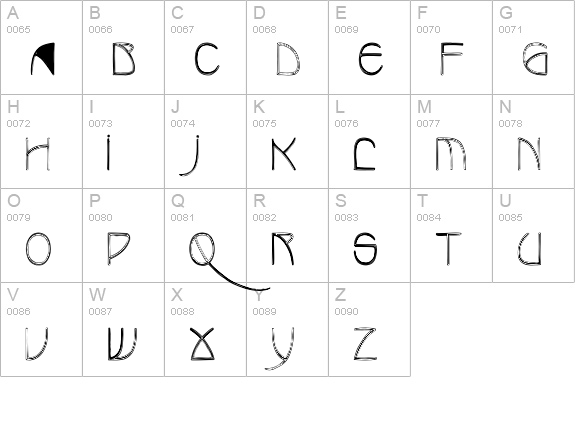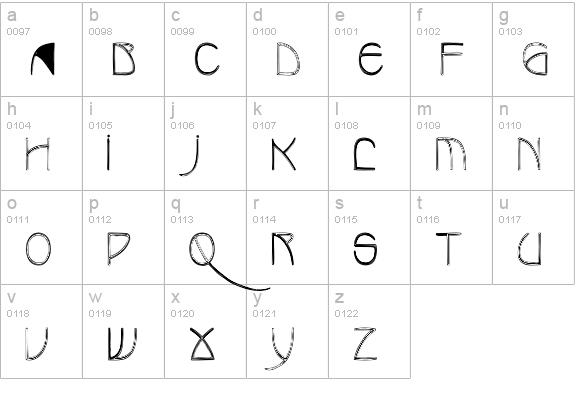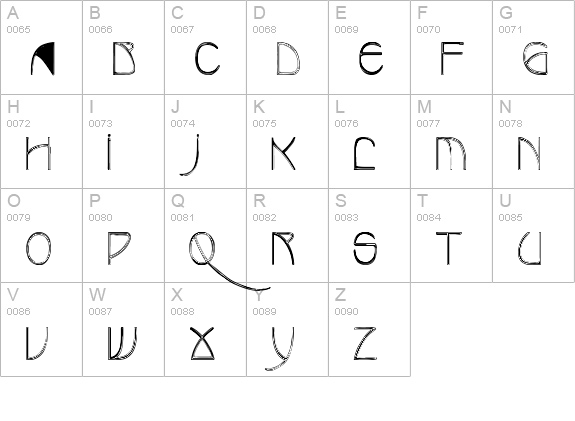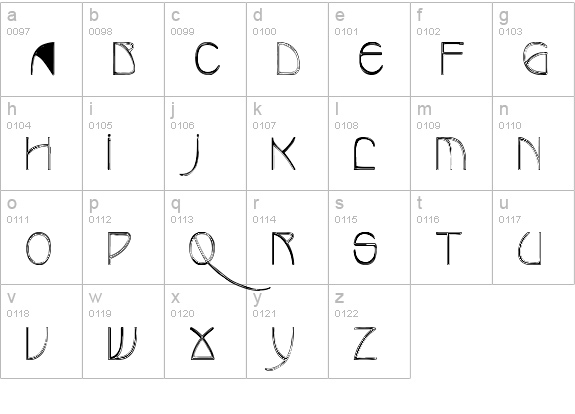
BenjaminCapsHC Font Details
BenjaminCapsHC font is a stylish and elegant typeface that exudes sophistication and class. Its uppercase characters are beautifully designed with a combination of sharp angles and flowing curves, creating a unique and eye-catching look. Perfect for adding a touch of luxury to your projects, this font is versatile and can be used for various design purposes. The best part is that BenjaminCapsHC font is completely free to download at FontsMarket.com. You can easily access this premium font without any cost, making it a valuable addition to your font collection. Whether you're working on branding, packaging, invitations, or any other creative project, BenjaminCapsHC font will elevate your designs with its refined aesthetic and timeless appeal. Don't miss out on this opportunity to enhance your work with the elegant BenjaminCapsHC font, available for free download at FontsMarket.com. Elevate your designs and make a lasting impression with this stunning typeface.